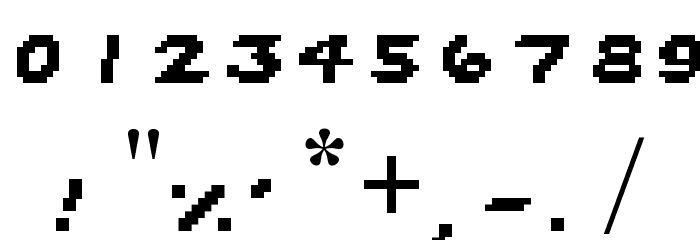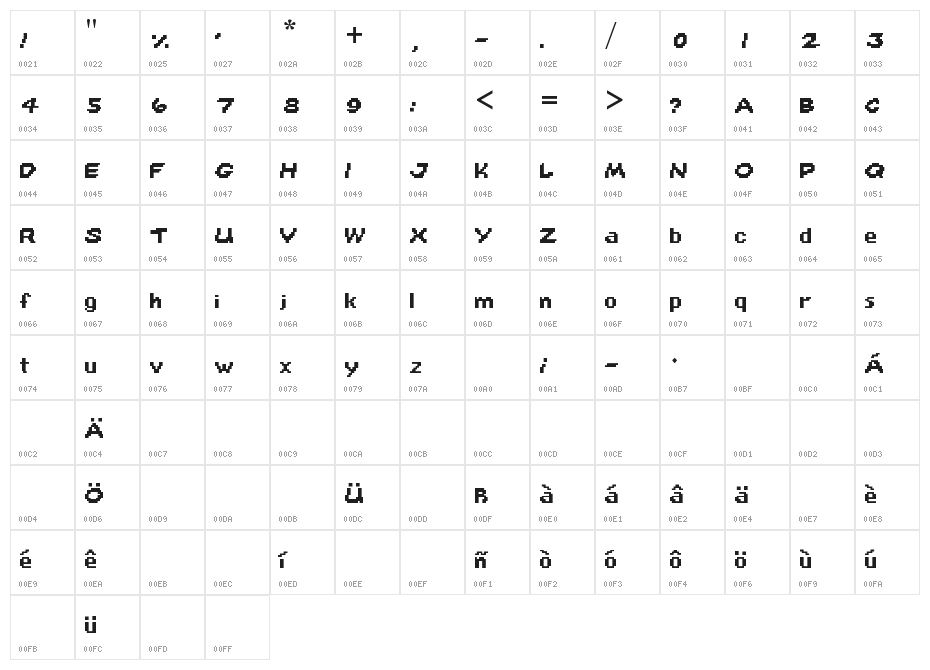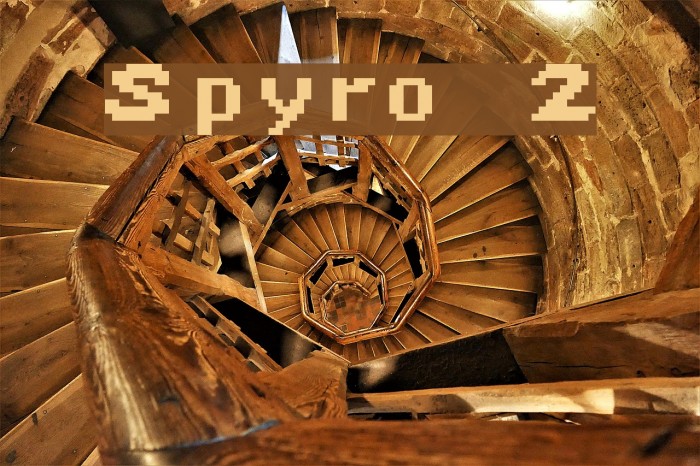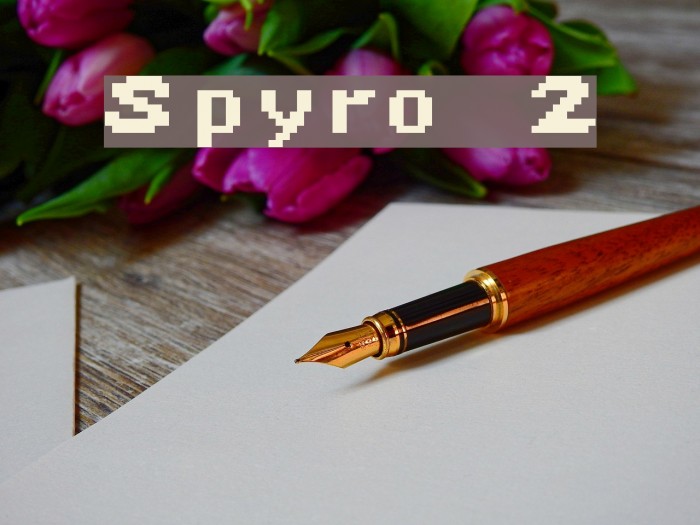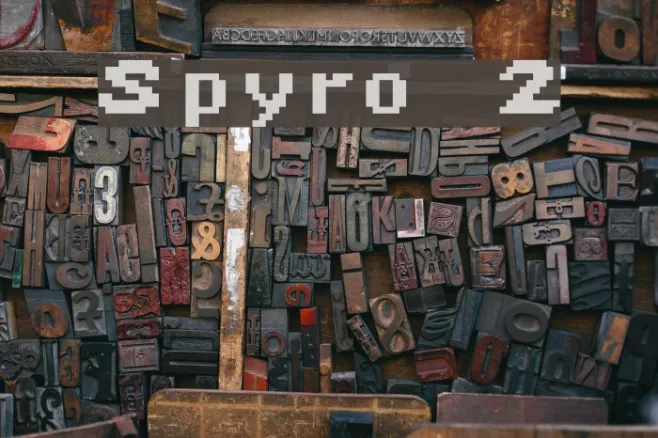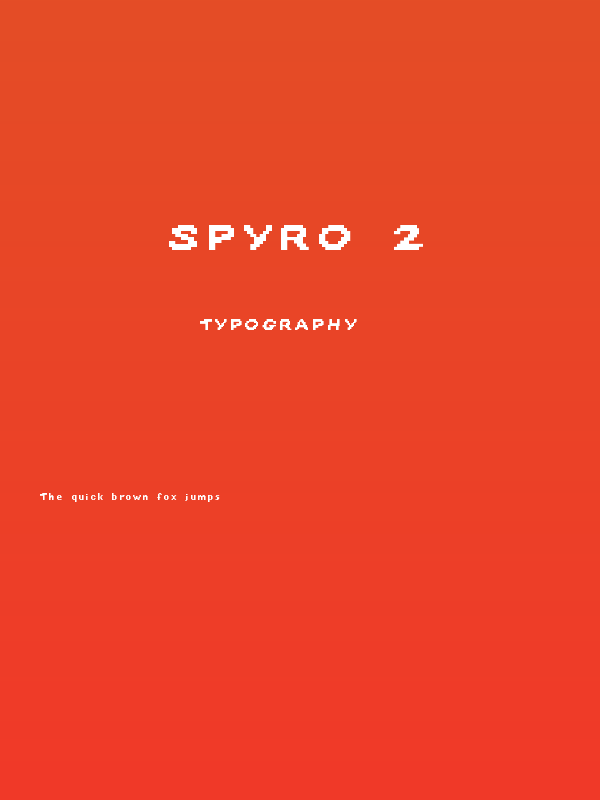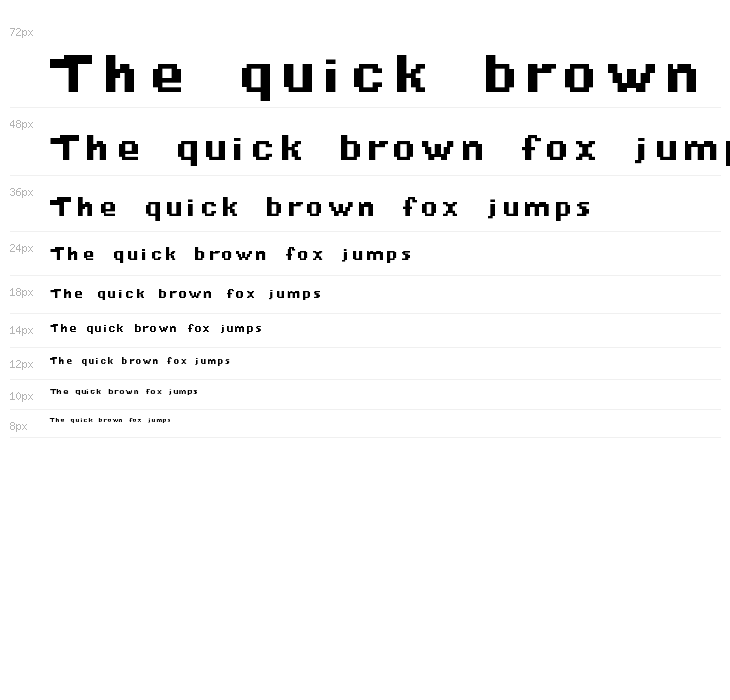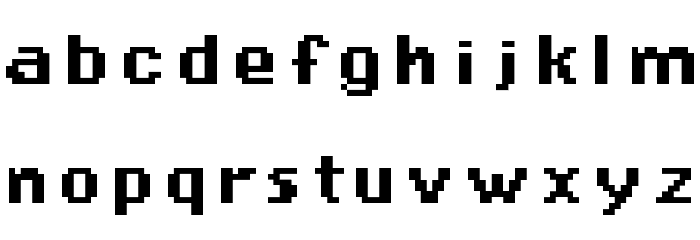
Spyro 2 Font
Spyro 2 Description
This font features a pixelated, blocky design reminiscent of early digital or video game typography. Each character is constructed with a uniform grid-like appearance, giving it a retro, 8-bit aesthetic. The uppercase and lowercase letters maintain a consistent height and width, contributing to a monospaced feel. The numerals and special characters follow the same pixelated style, ensuring visual coherence across all glyphs. This design is ideal for projects that aim to evoke nostalgia or a vintage digital look, such as retro gaming interfaces or themed graphic designs.
| Use Case | Logos, Headlines, Digital Art |
| Proposed Projects | Ideal for retro video game designs, digital art projects, and nostalgic branding. |